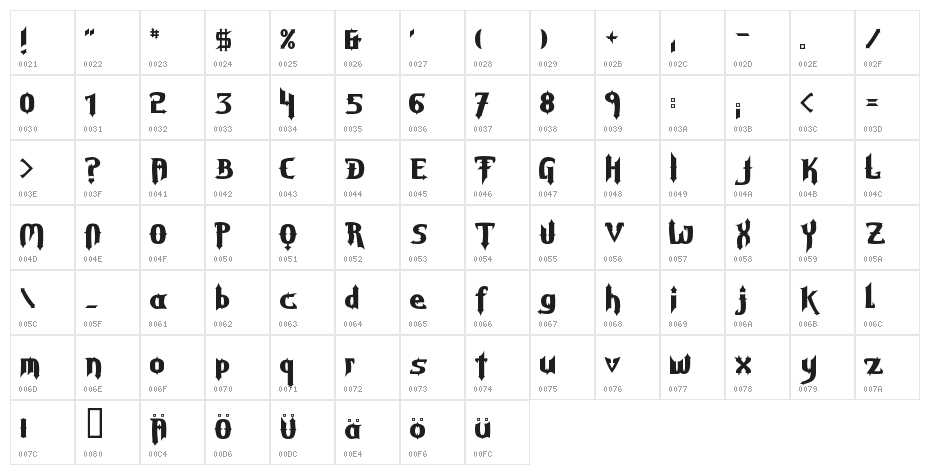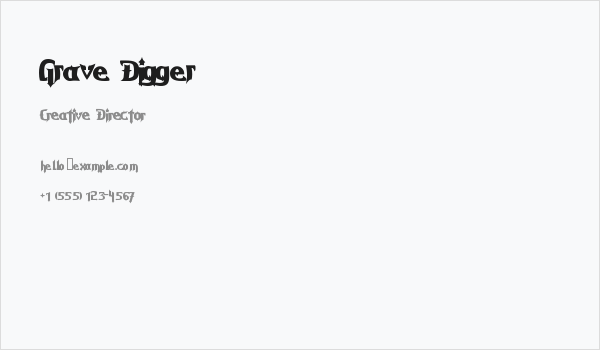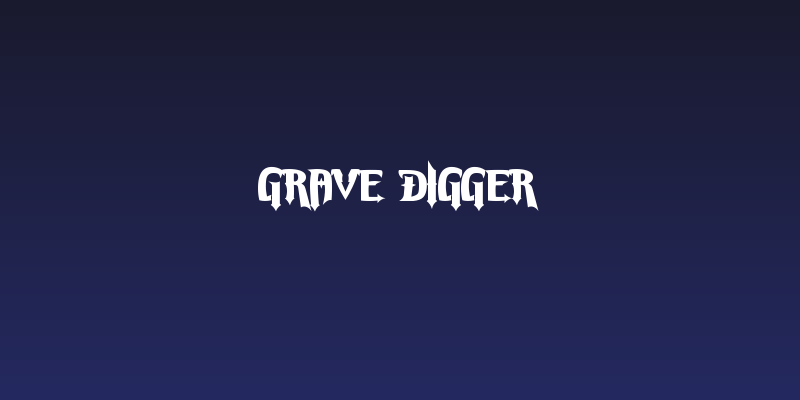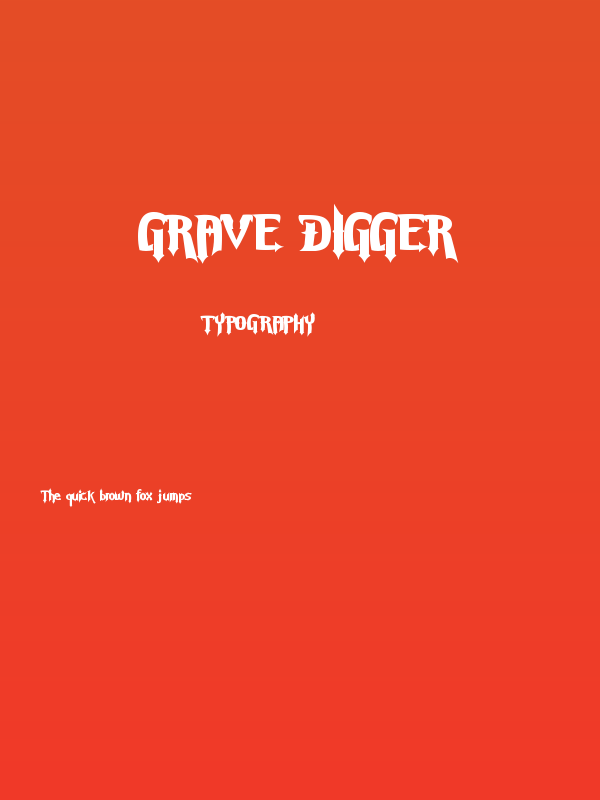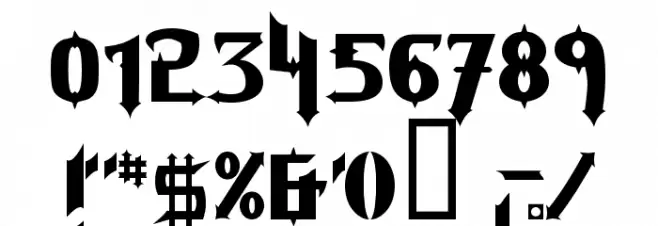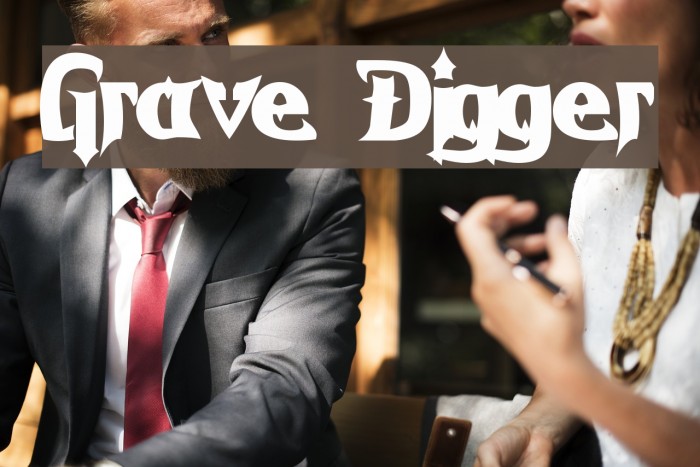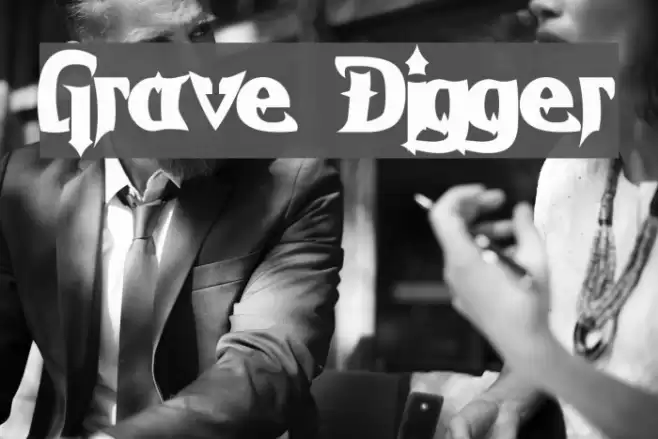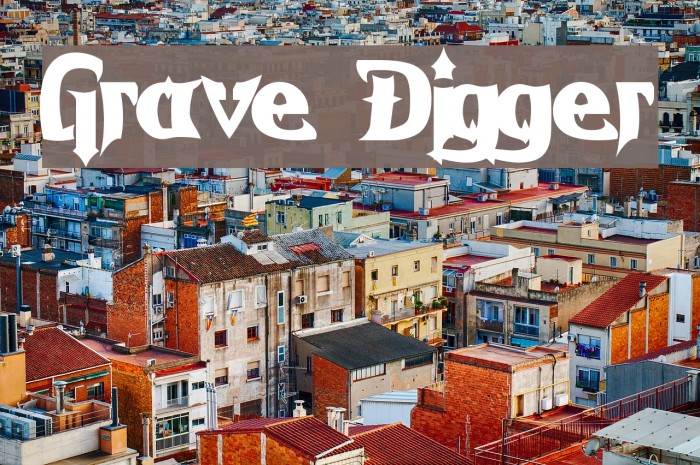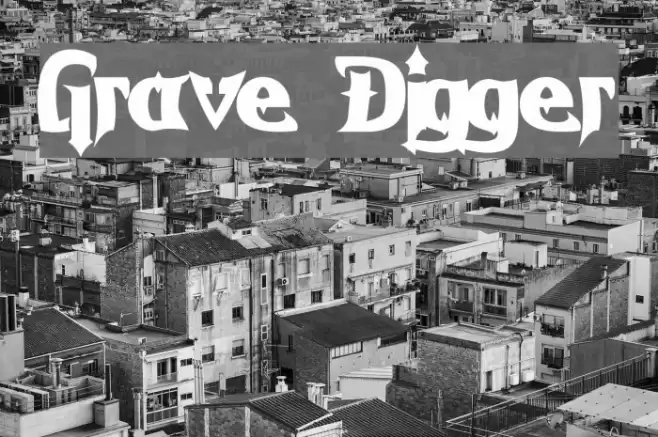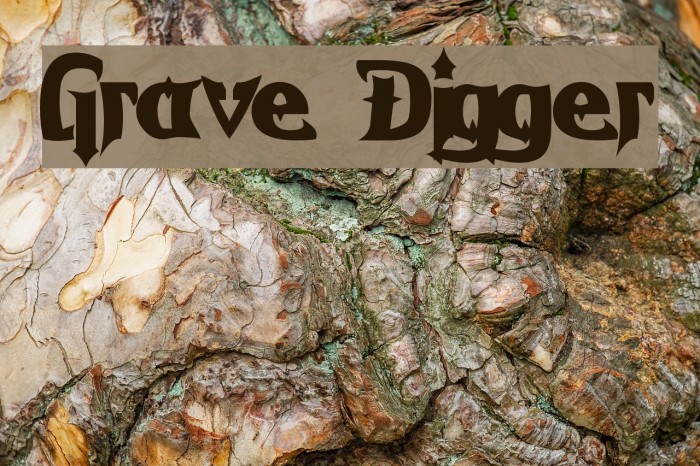
Grave Digger Font
| Gesamtstil | Gothic, Dramatic |
| Anwendungsfall | Headlines, Logos, Decorative purposes |
| Vorgeschlagene Projekte | Ideal for posters, album covers, themed events, and branding that requires a dramatic touch. |